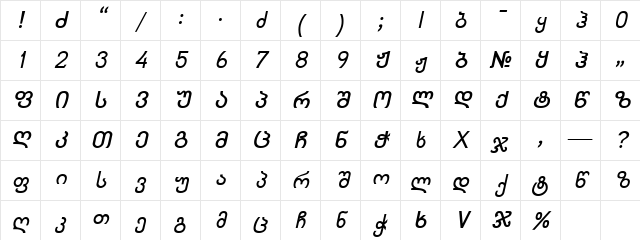
Kolkhety-ITV Bold Italic
Design Context for Kolkhety-ITV
Kolkhety-ITV is a composed and adaptable typeface that performs quietly and consistently across a wide range of design contexts. The slanted form adds forward momentum and visual energy. Its bold stroke weight gives it real presence on the page.
Pro Tip: Use Kolkhety-ITV for emphasis, pull quotes, and subheadings where its slanted energy can add rhythm to the layout.